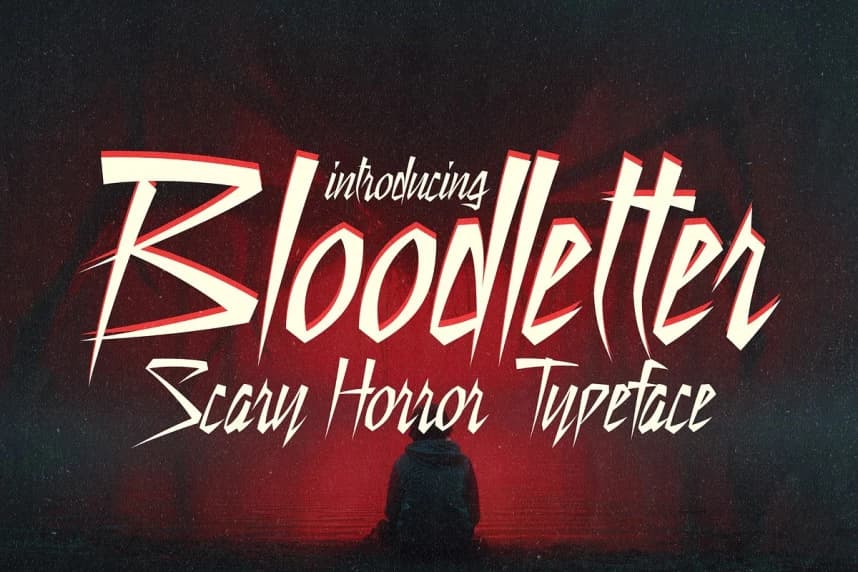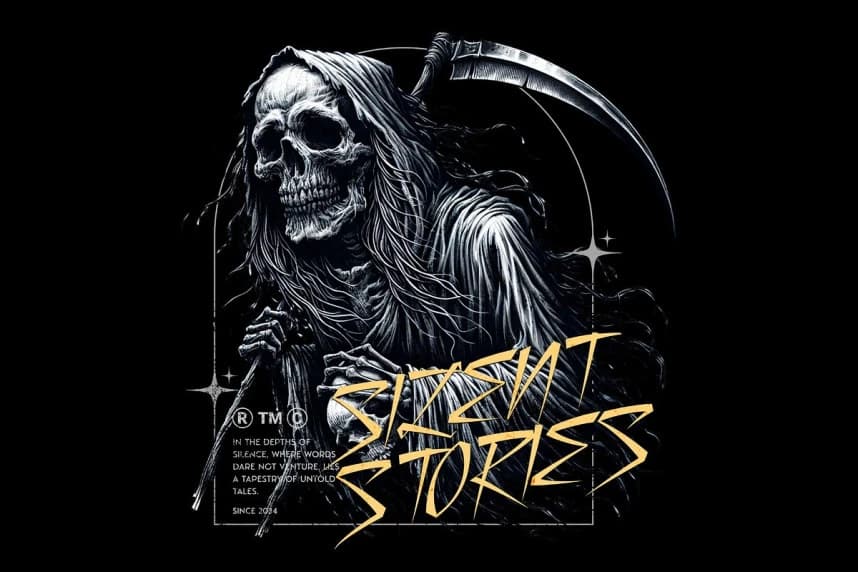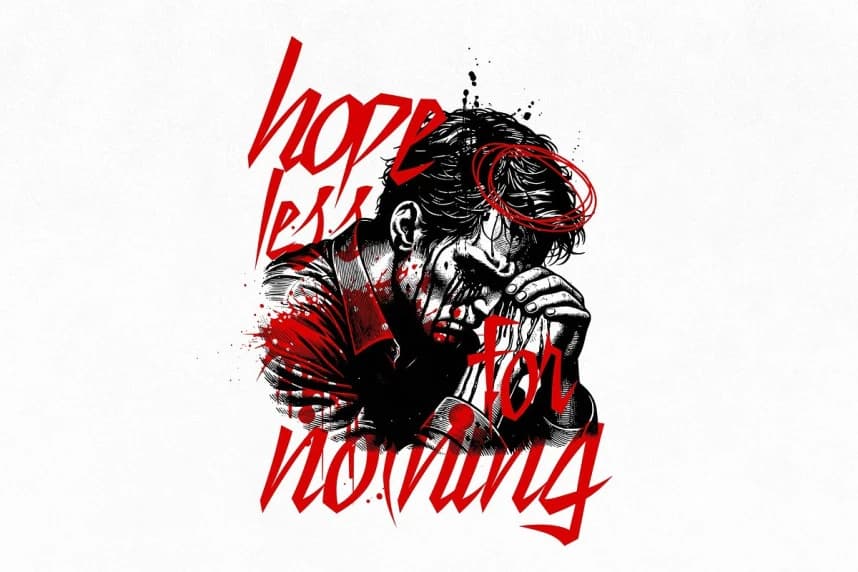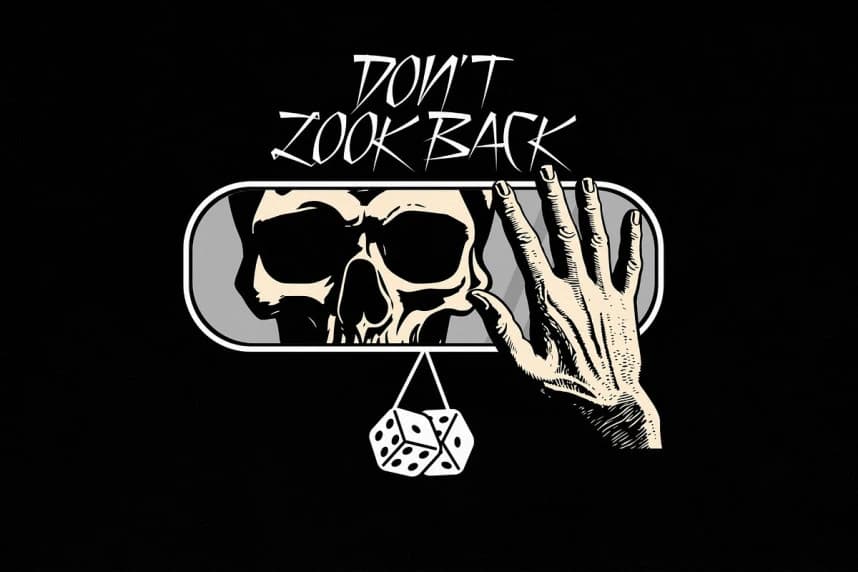
Bloodletter Font
Bloodletter Font is not just a font, it’s a scream in typographic form. Crafted with razor-sharp edges and unsettling detail, this horror typeface was made to terrify. Each letter feels carved, slashed, or summoned straight from a nightmare